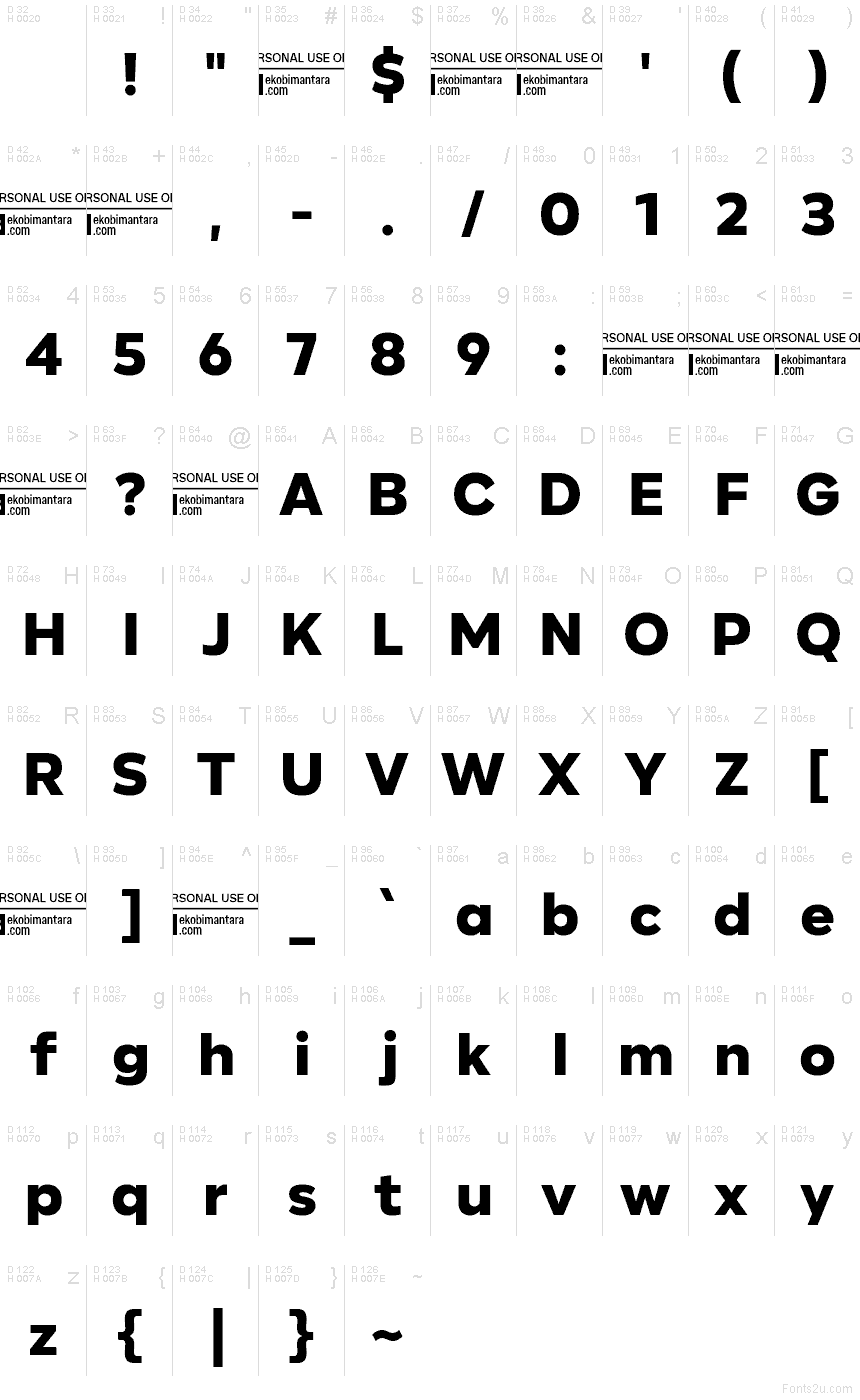
Geova Trial Extra Bold
Geova Extra Bold font by Eko Bimantara is a free sans serif font. Built within the Geova family, it throws real weight around without turning harsh—big, rounded bowls and clean, geometric strokes create a bold voice that still feels friendly. Letters lock together with a steady rhythm, so headlines read as a smooth block of ink instead of a jumble of shapes.
Using Geova Extra Bold, you get punchy clarity for logos, posters, packaging, splash screens, banners, and bold social tiles. The generous curves hold up on backlit screens and print alike, while the sturdy forms deliver instant impact at large sizes. For a simple pairing, set subheads in Geova Regular to keep the tone consistent and let this free font handle the shout.